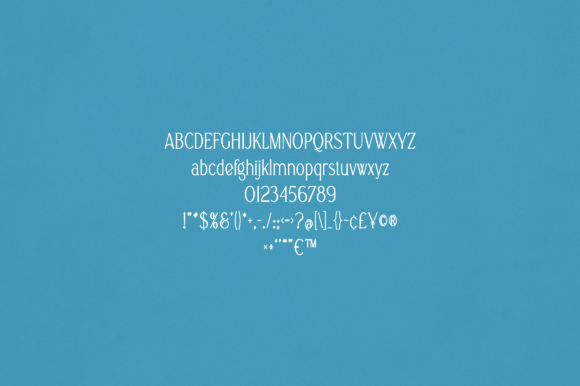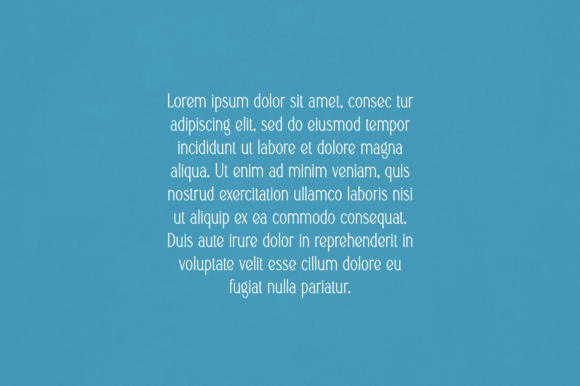
Introduction to Mingus Font
Have you ever been working on a creative project and suddenly, the perfect font pops into your mind, elevating your entire design? That’s exactly what happened to me when I stumbled upon the stunning Mingus Font. Its elegant and versatile nature made me wonder, what makes this font so special, and how can designers like us harness its power to take our typography to the next level?
As a valuable design resource, the Mingus Font is perfect for branding projects, home-ware designs, product packaging, magazine headers, or simply as a stylish text overlay to any background image. With its high-quality design, it’s no wonder why designers are drawn to this font, and why it’s a must-have in every designer’s toolkit.
Mingus Font Key Features
- High-quality, professional font suitable for creative projects and design resources.
- Features a unique, elegant design with a range of styles and weights to suit different creative needs.
Honest Review: Mingus Font
I recently stumbled upon the Mingus Font while searching for a unique design resource for a creative project. After taking it for a spin, I wanted to share my honest thoughts.
- ✨ The Mingus Font boasts a high quality design that’s perfect for creative projects. Its clean and modern aesthetic makes it a great addition to any design.
- ⚠️ The Mingus Font may not be suitable for body text due to its bold and eye-catching nature.
- ⚠️ The font’s limited font weight options may restrict its versatility in certain design applications.
Overall, I’m impressed with the Mingus Font and would recommend it as a design resource for creative projects. Its unique design and transparent background make it a great addition to any design arsenal.
Mingus Font
Designing with High Quality Fonts
The Mingus Font is a versatile and elegant design resource perfect for any creative project. With its unique aesthetic, it adds a touch of sophistication to any text-based element.
Tips for Getting the Most Out of Mingus Font
To get the most out of the Mingus Font, experiment with different font sizes, colors, and layering techniques. Combine it with other design elements to create visually striking compositions.
The Mingus Font is perfect for designing logos, business cards, invitations, and other text-based elements. Its unique aesthetic makes it an excellent choice for creative projects that require a touch of sophistication.
Comparison to Mingus Font: Great Vibes Font has a more refined, elegant appearance compared to Mingus Font’s more playful, handwritten style. While Mingus Font is great for casual, creative projects, Great Vibes Font excels in formal, high-end designs.